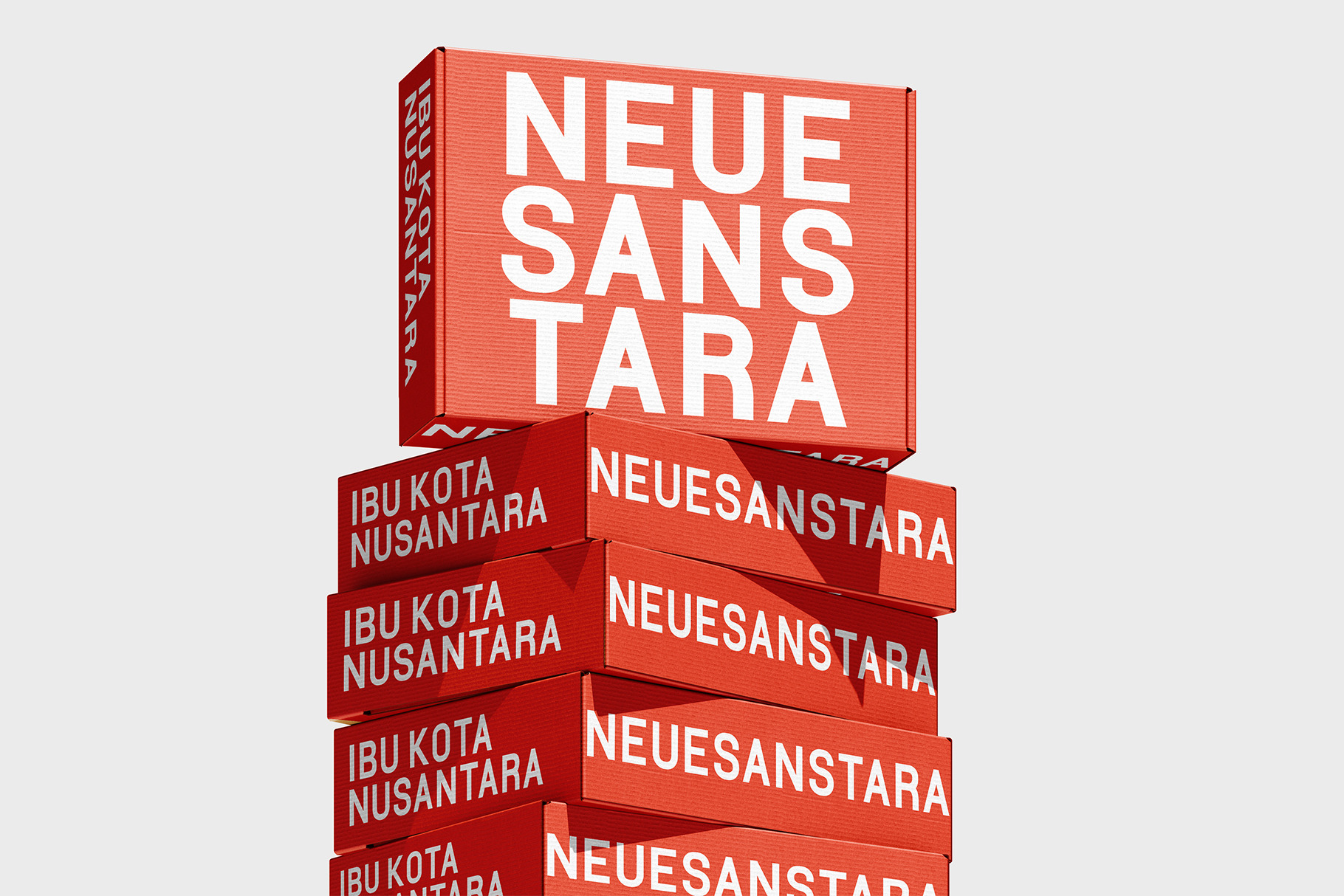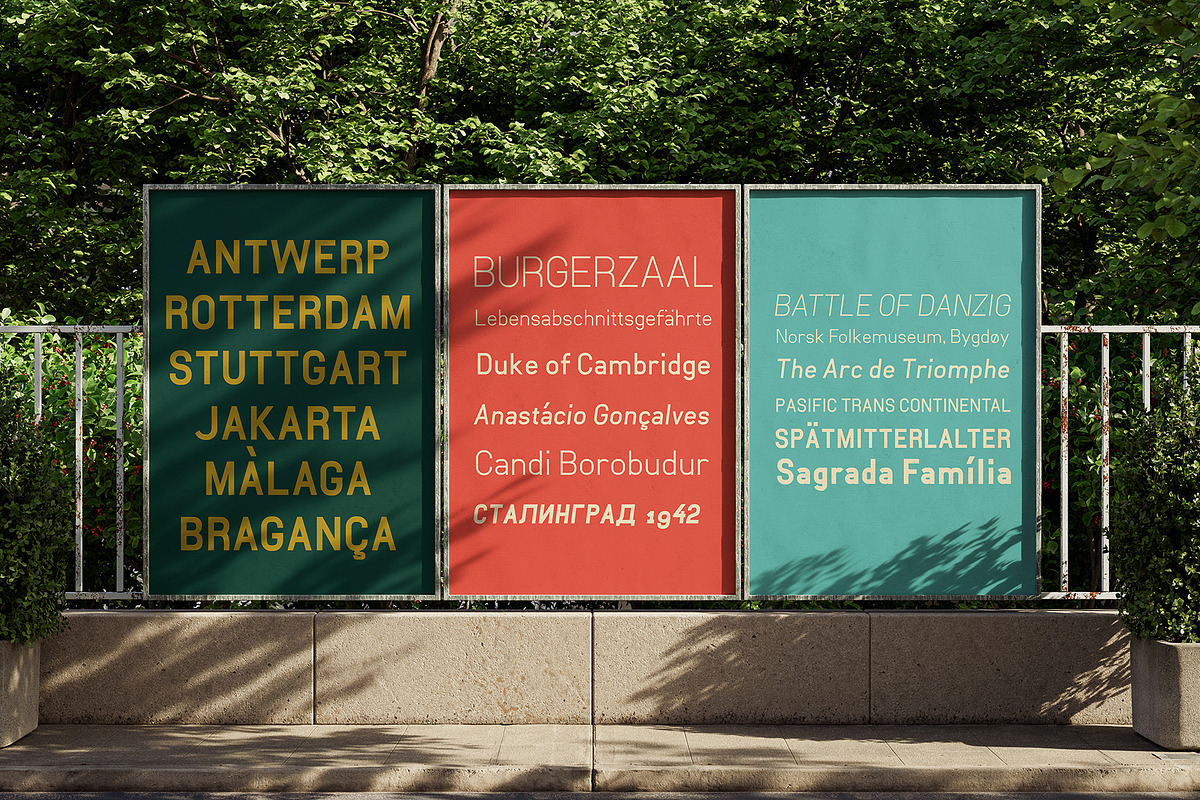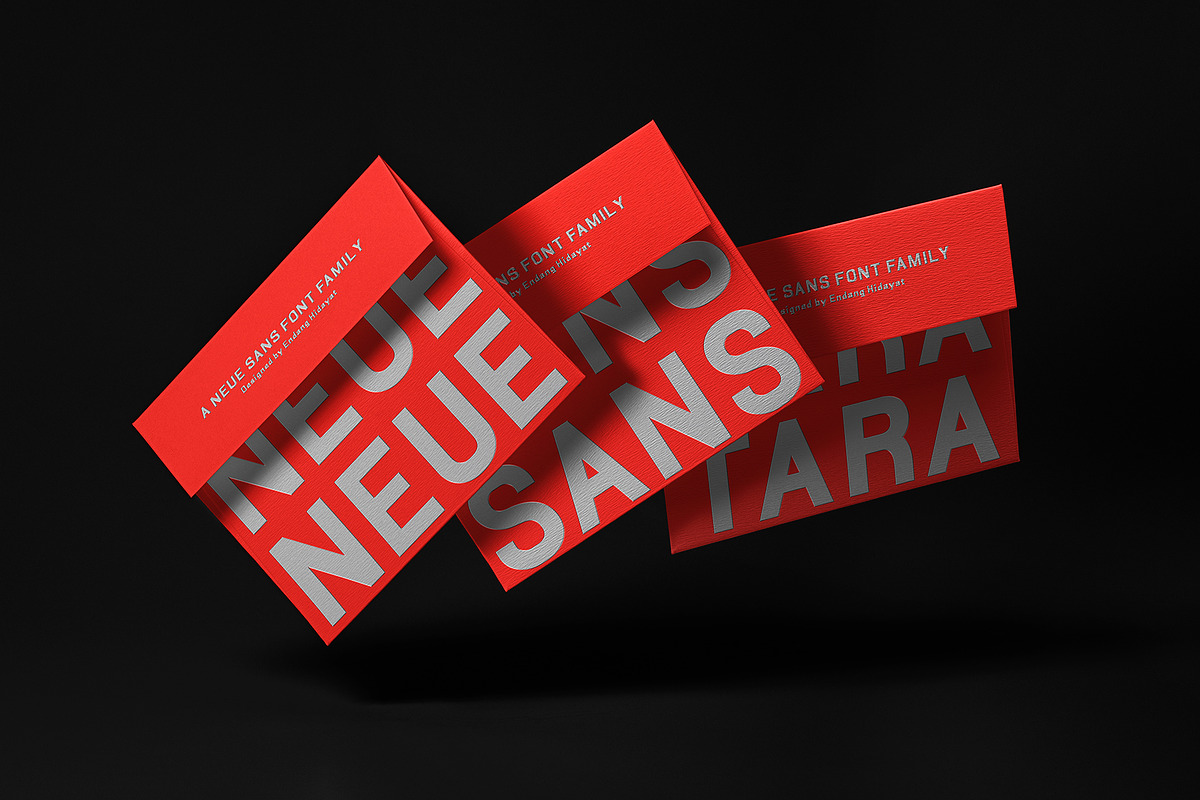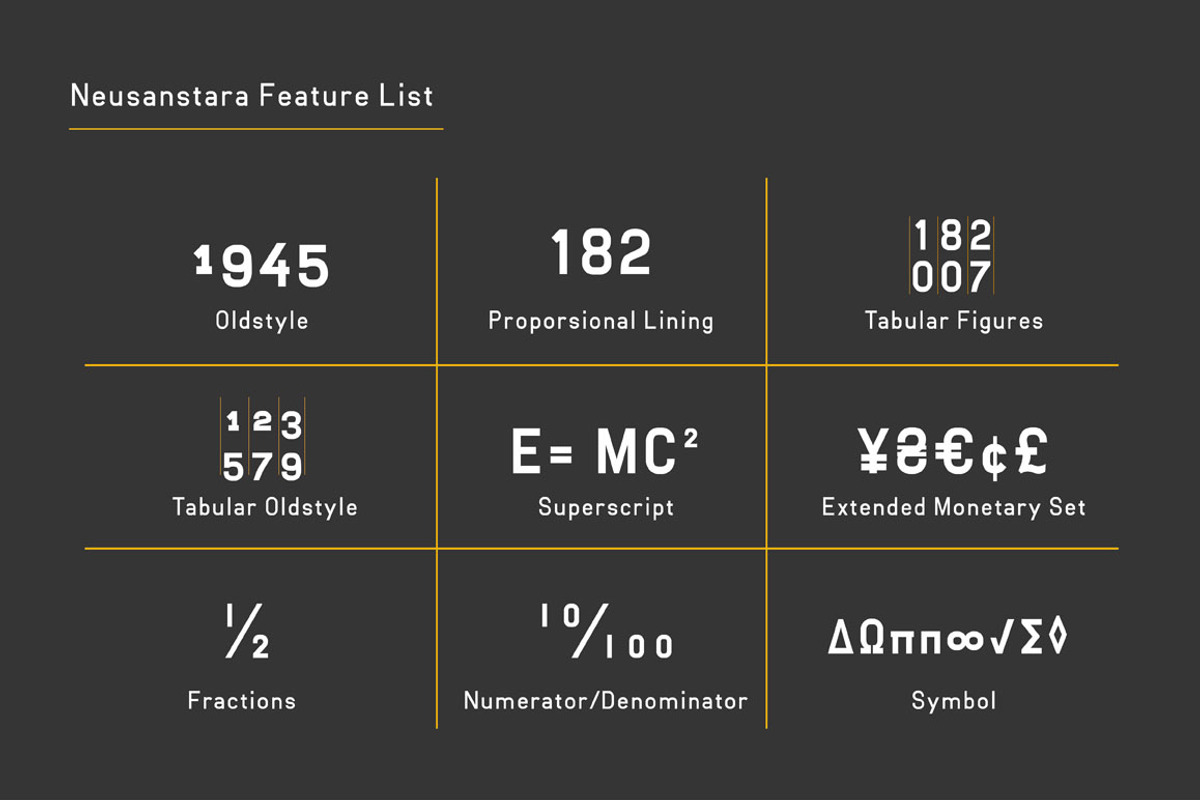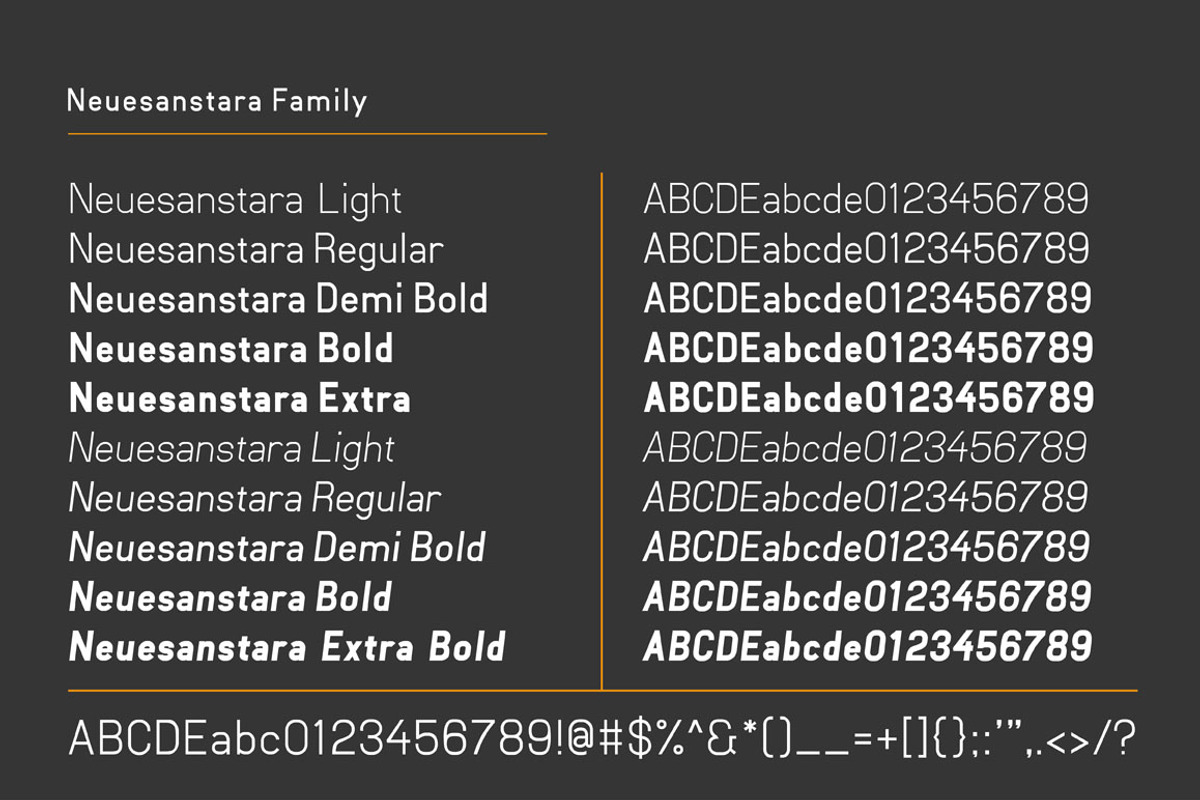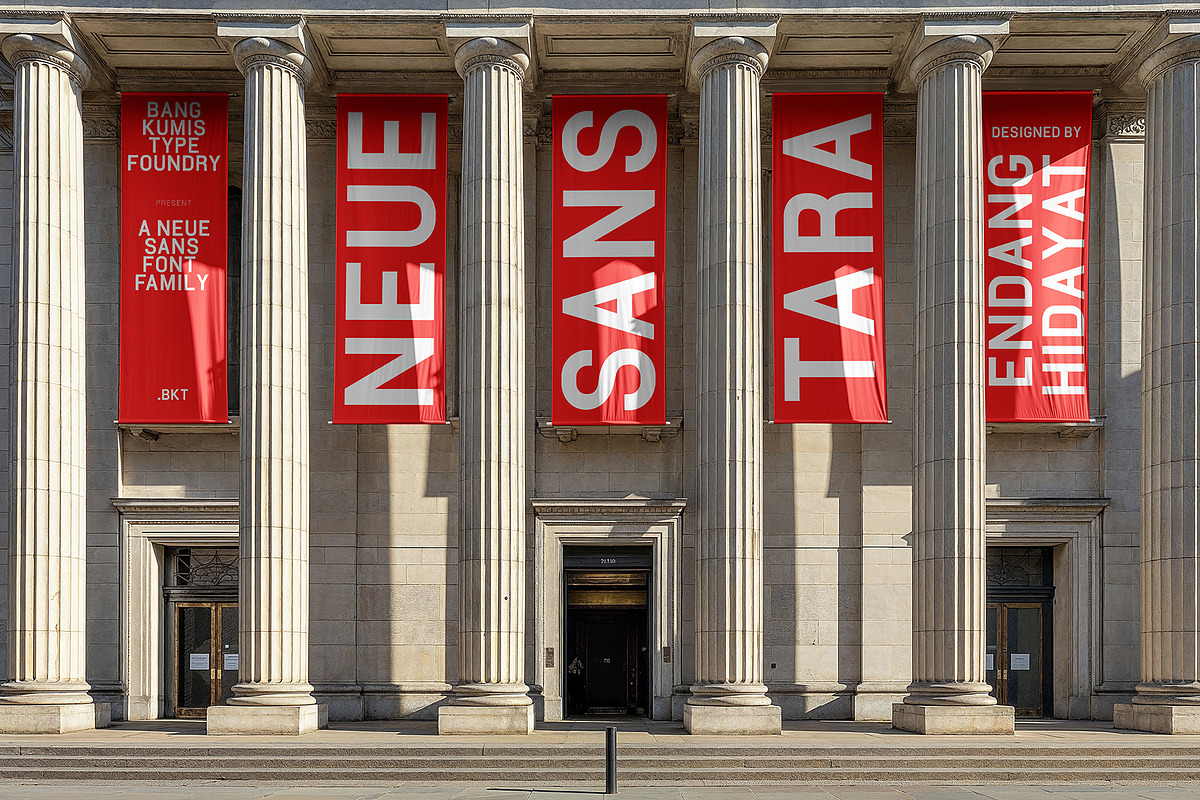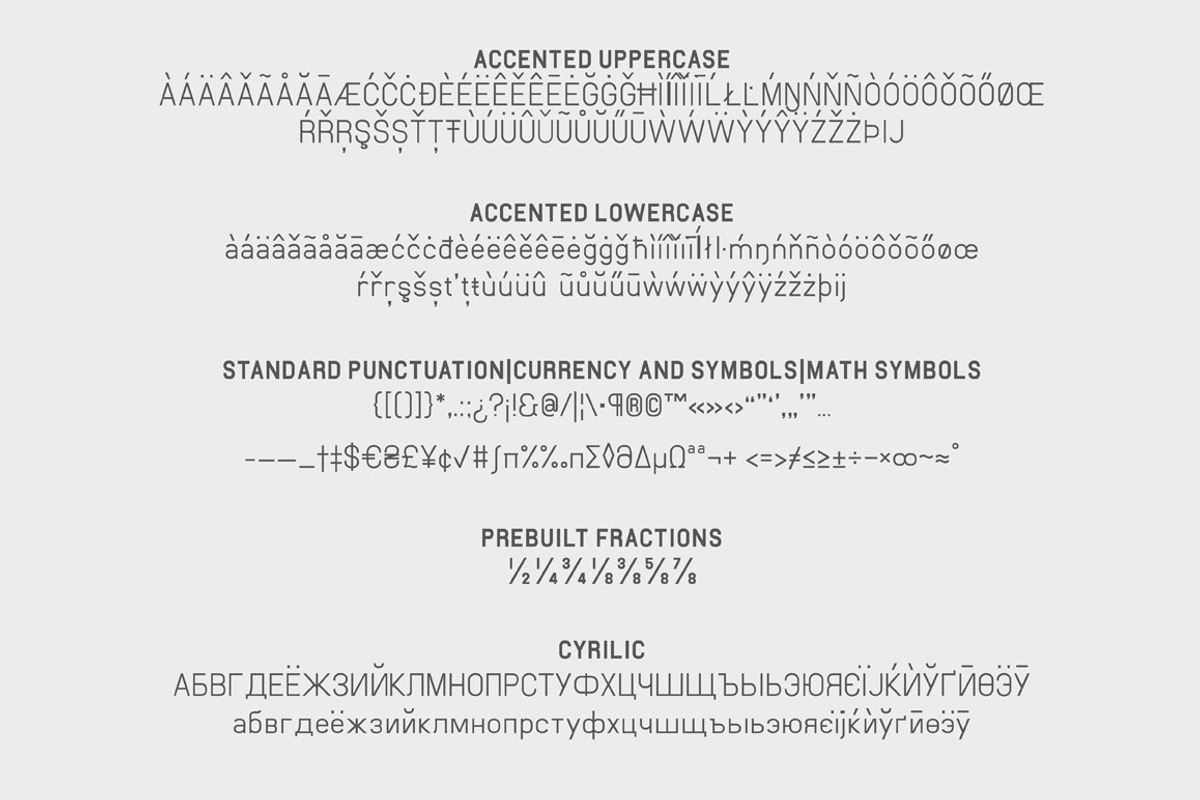
Neuesanstara Font Family
Neusanstara font family is about when classic meets modern. Contemporary New sans with aesthetic and elegant shape. Neuesanstara is characterized by excellent legibility both in print and on the web. Consists of 10 unique font styles and weights. Look great for your headline in all sizes. With various styles give the versatility necessary to meet all type design platforms, from web to print and perfect for T-shirt, poster or logos, signage or anywhere you put this font into.
Feature Summary:
- 5 weights
- Obelique Sets
- Russian Cyrillic supported
- Most Latin-based scripts supported
- Lining, oldstyle and tabular numbers
- Fractions